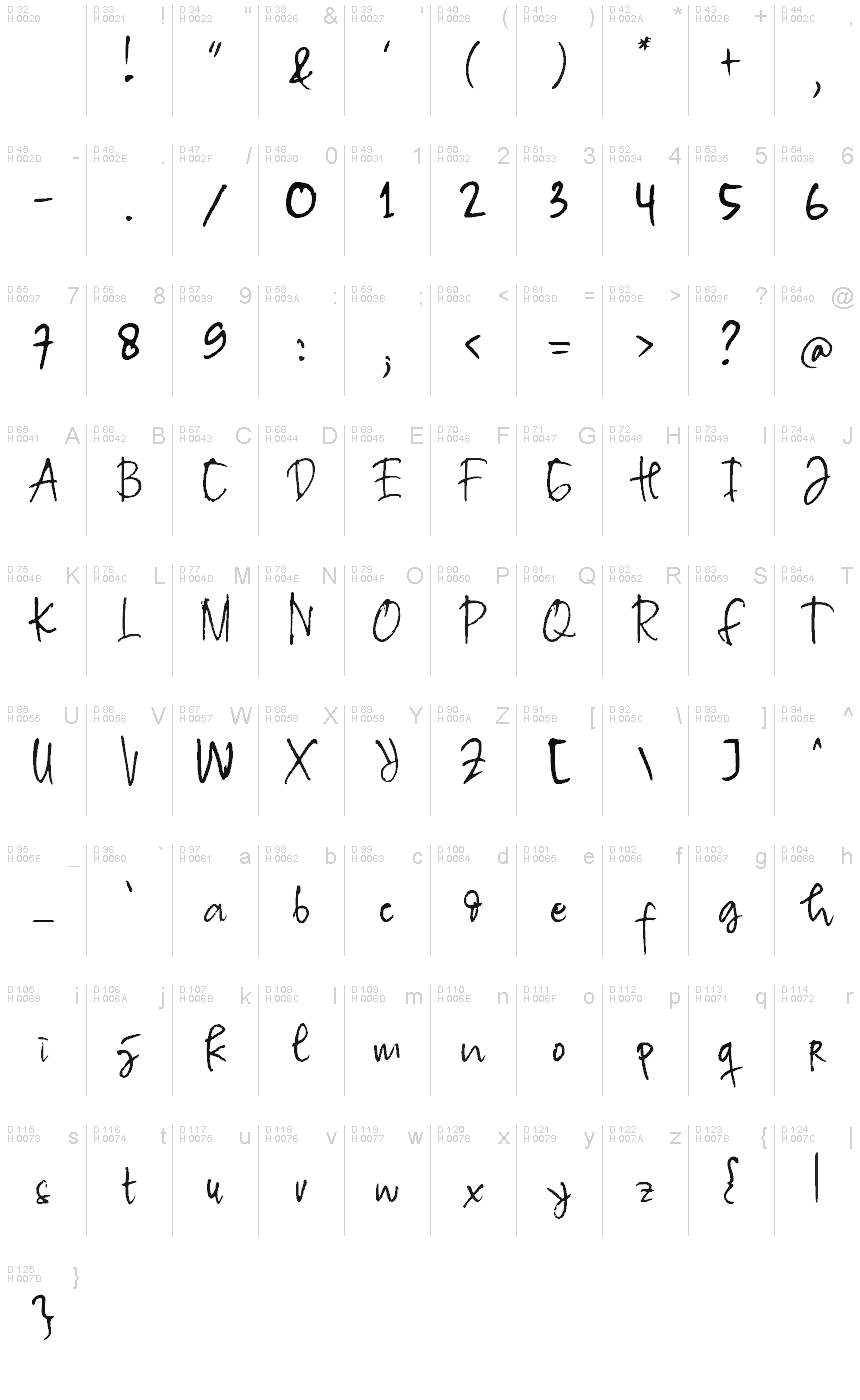
Tracer Script (Demo)
Tracers is a hand-made pen font, designed to combine perfectly and allow you to create stunning hand-lettering quickly and easily. Also included 26 bonus swashes and 26 bonus splaters, ideal for giving your text that final touch of finesse!
1. Uppercase and lowercase characters
2. Large set of punctuation glyphs, numerals, and supports international languages
3. Stylistic alternates for several key lowercase characters are also available
5. Bonus 26 swashes and 26 splaters